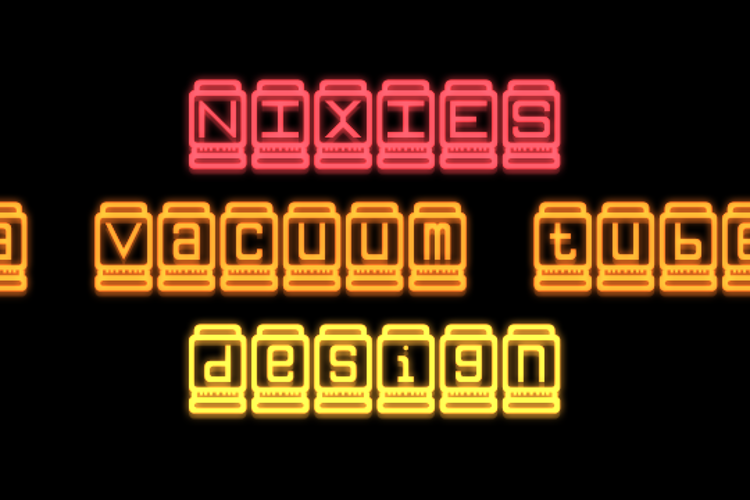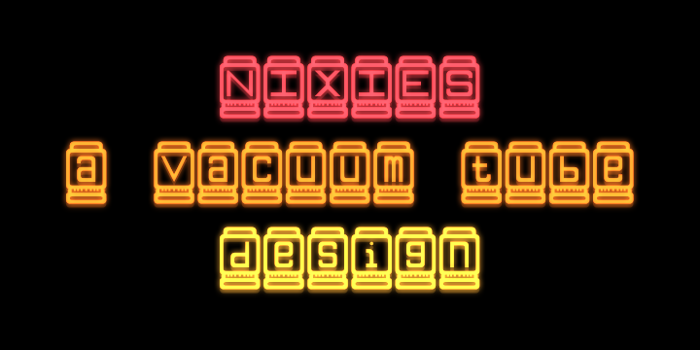
Nixies Font
About Nixies Font
A font which I designed to look like vacuum tubes or valves. Good for all sorts of uses! You can use the font as-is, or mount the letters onto a drawing (such as a drawing of a hi-fi amp).